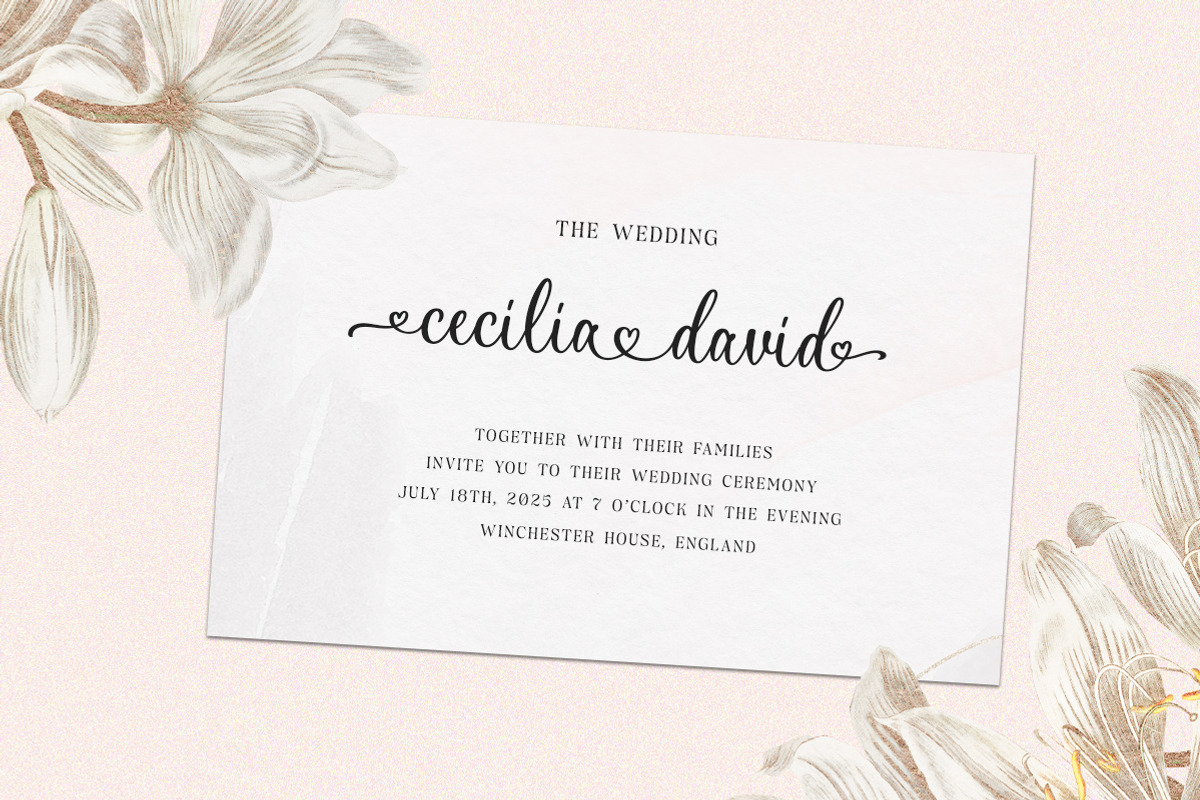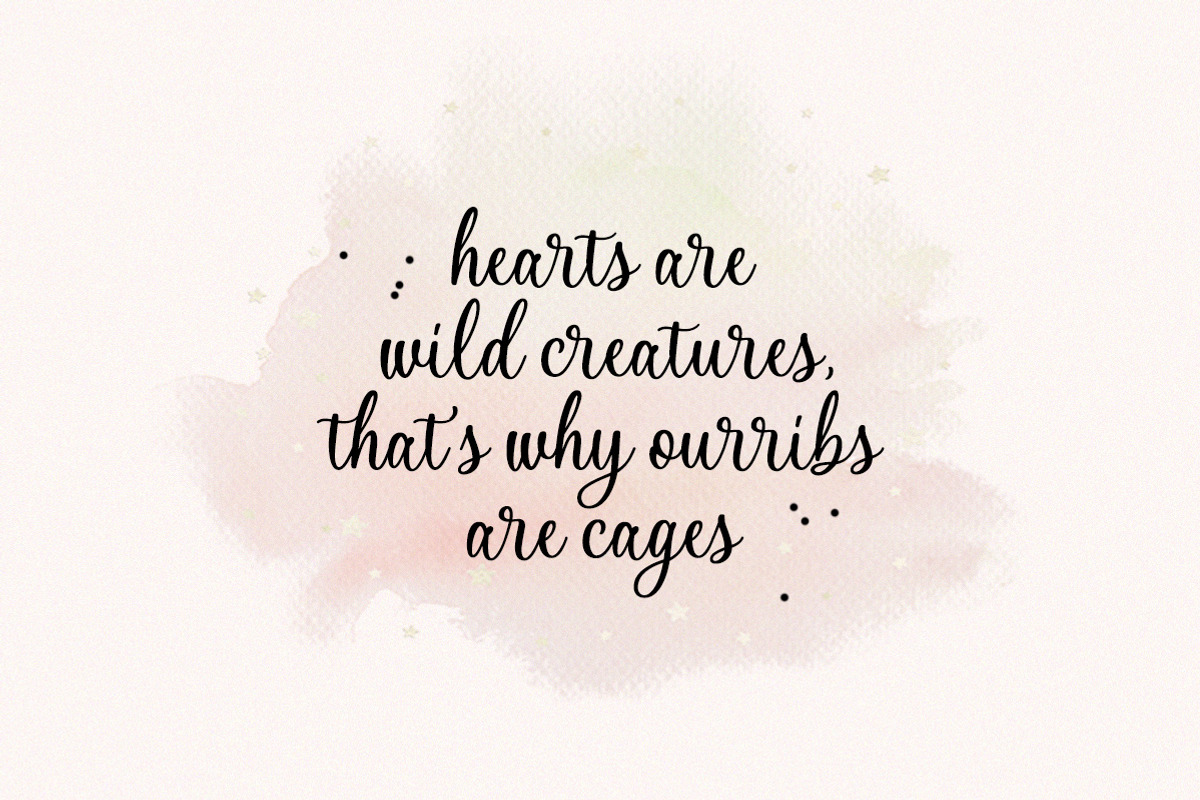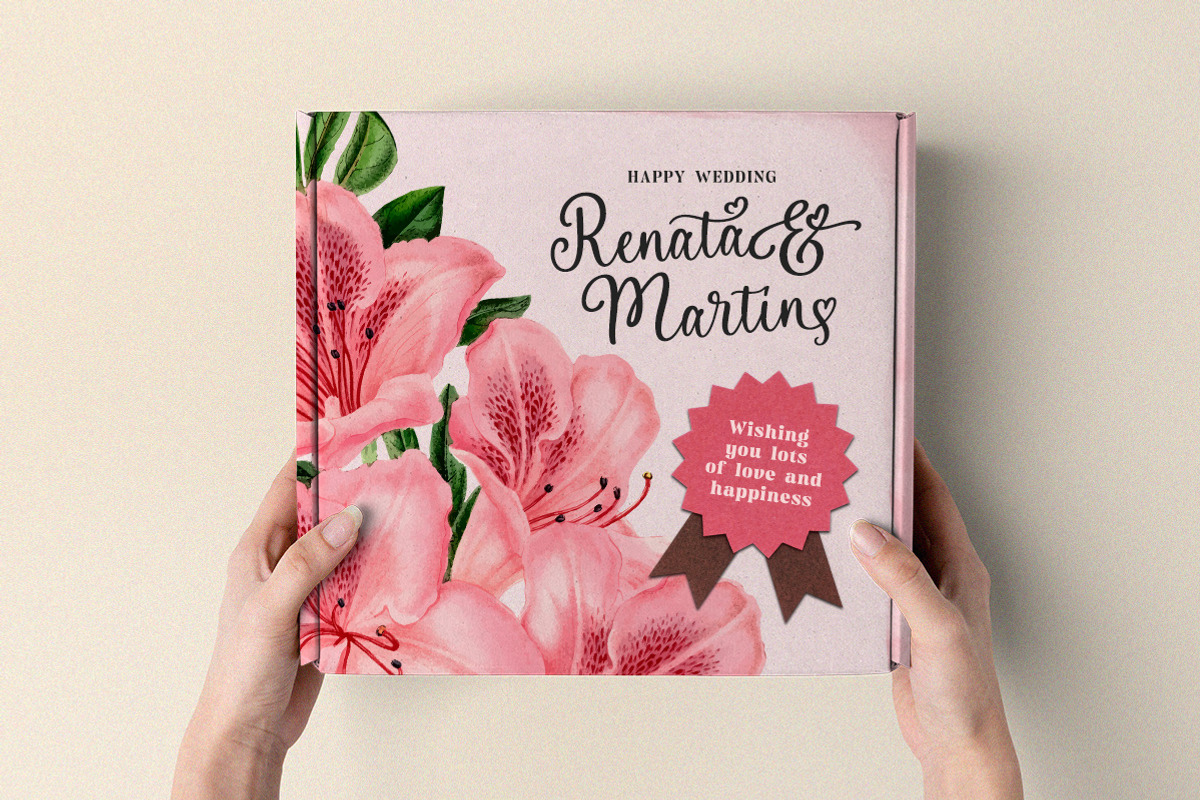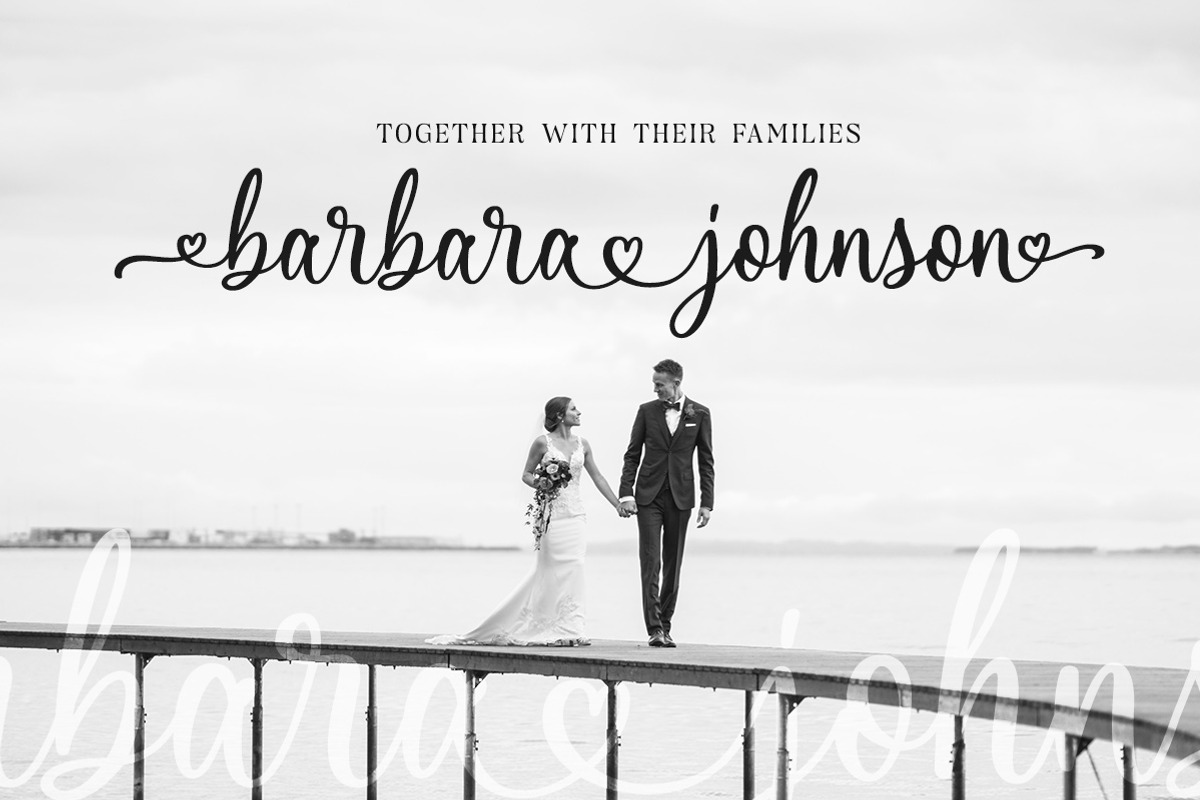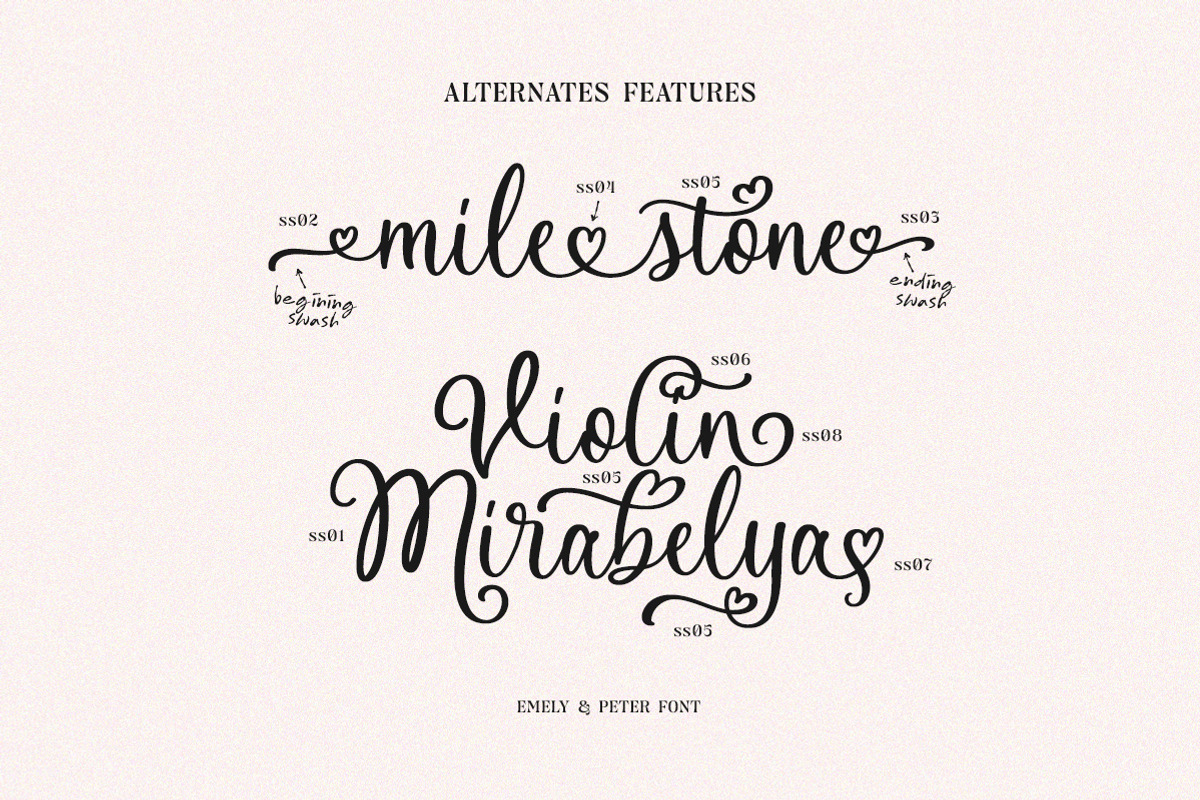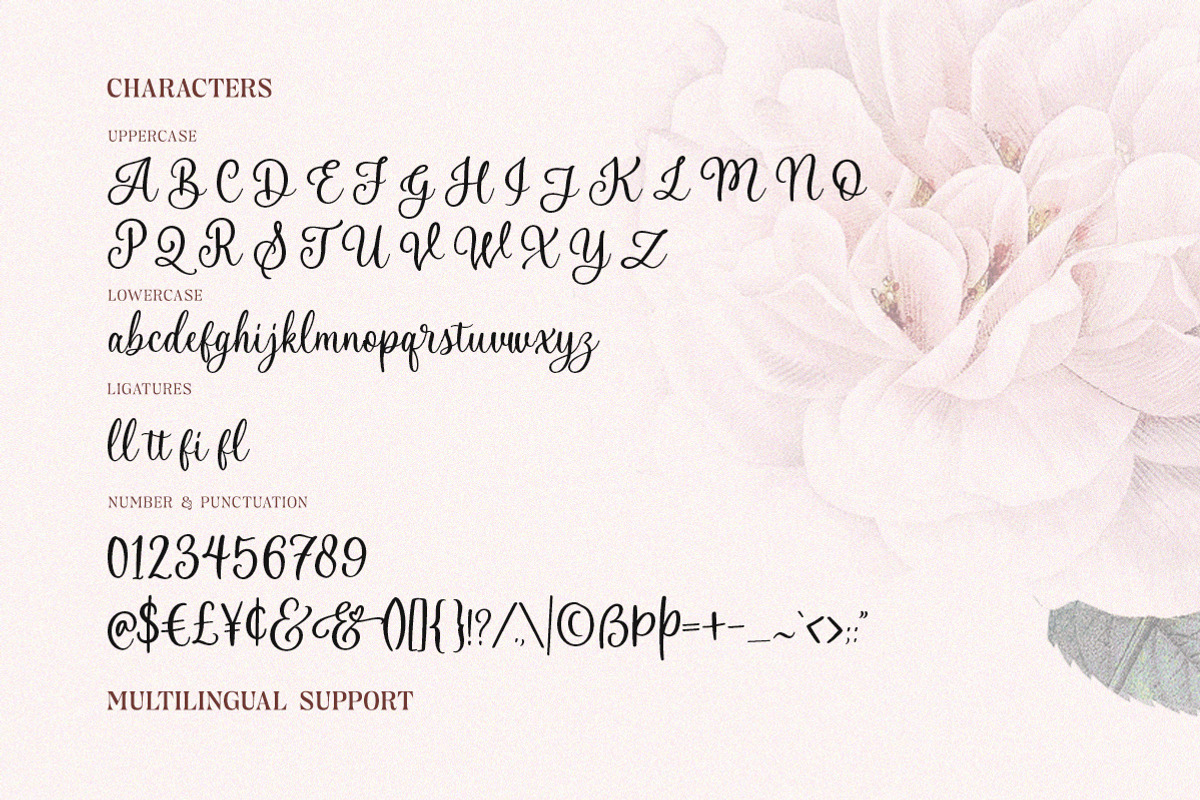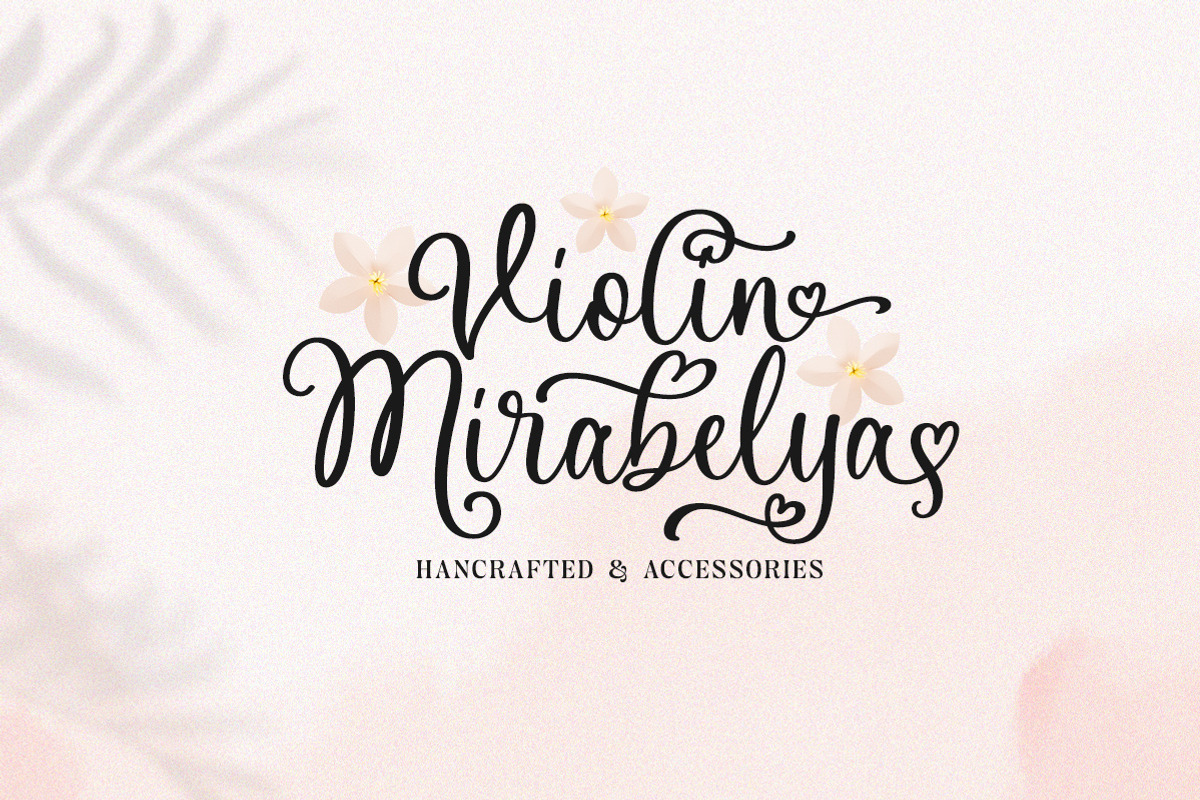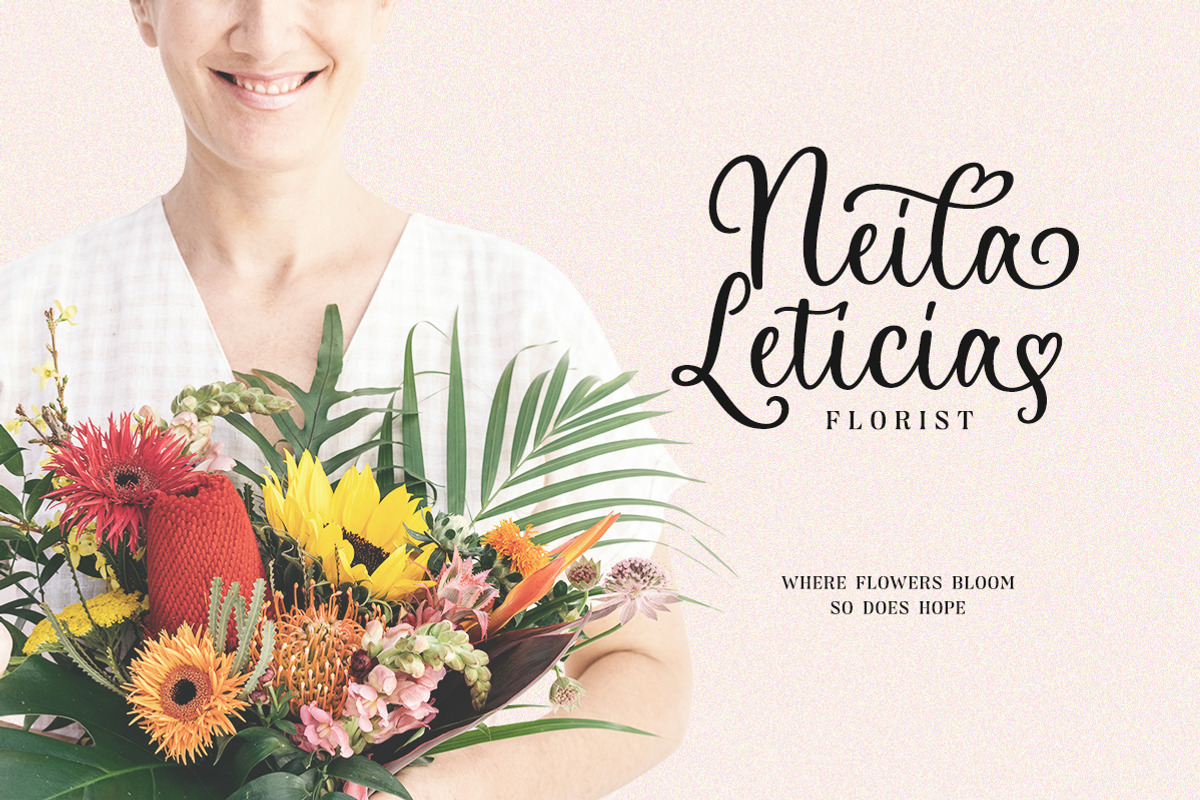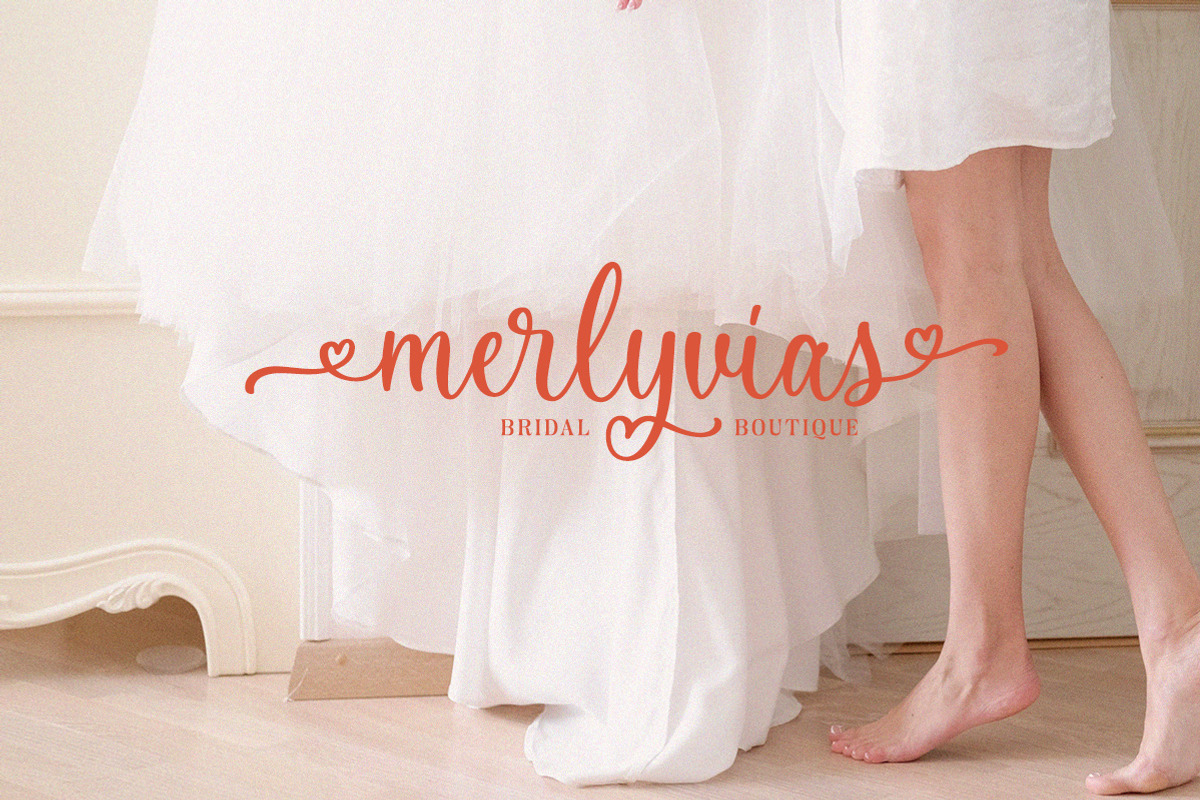
Emely and Peter - Lovely Script
Emely and Peter is a beautiful modern calligraphy script with love theme. The swashes and love ornaments makes this font looks suitable for romance, wedding, feminine theme. This type of font also perfectly made to be applied especially in logo, and the other various formal forms such as invitations, labels, logos, magazines, books, greeting / wedding cards, packaging, fashion, make up, stationery, novels, labels or any type of advertising purpose.
- alternates and ligatures
- swashes